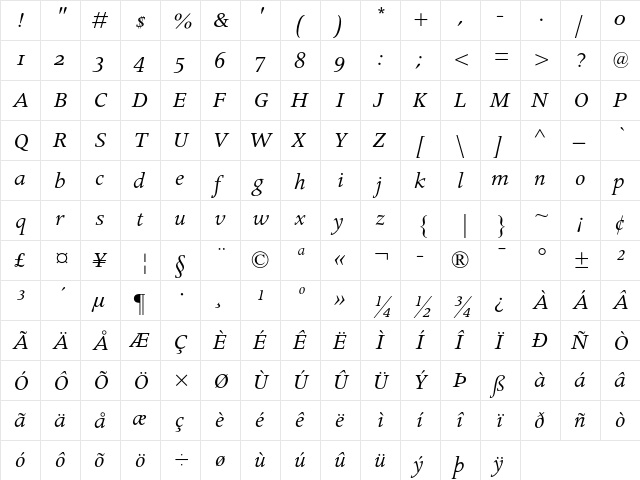
Apollo MT Italic OsF
Design Context for Apollo MT Typeface
Apollo MT is a composed and adaptable typeface that performs quietly and consistently across a wide range of design contexts. The slanted form adds forward momentum and visual energy.
Pro Tip: Try Apollo MT for annotation and caption copy alongside an upright companion — the contrast in angle creates a dynamic but ordered typographic system.